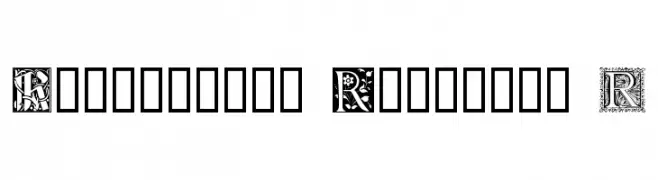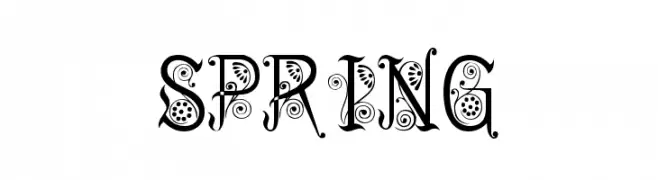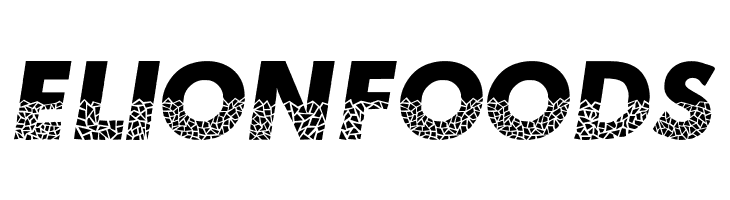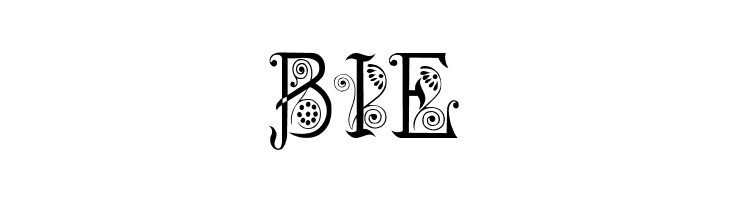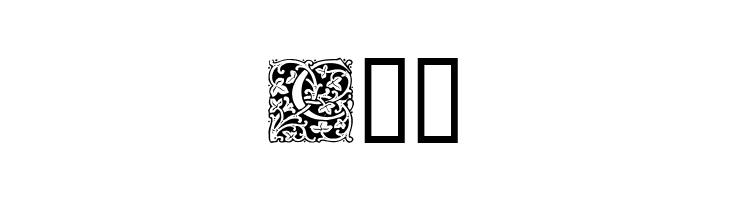
• Ornamental Initials C
Ornate and decorative initials with intricate floral designs.
• Bizzy
A modern, geometric font with bold, rectangular frames around each character.
• MosaicCaps
A bold, mosaic-patterned font with an italicized style.
• Party
A bold, block-like font with enclosed characters and a modern, playful style.
• Spring
An ornate decorative font with intricate floral and circular patterns.
• Art Nouveau Initials C
A decorative Art Nouveau font with intricate floral and organic motifs.
• Ornamental Initials G
An ornate and decorative font with intricate, medieval-style initials.
• Ornamental Initials H
An ornate and decorative font with intricate, medieval-style embellishments.
• Ornamental Initials R
An ornamental and highly decorative font with intricate designs.
• Buttons